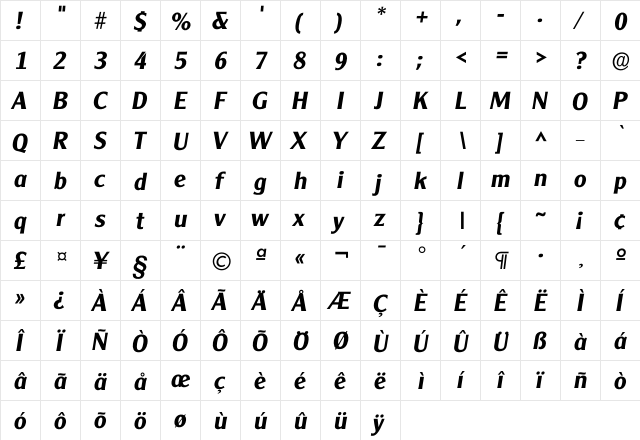
Icleargothic DemiBold
Design Context for Icleargothic Typeface
Icleargothic takes a clean, functional approach — its unadorned letterforms prioritise legibility and work reliably across screen and print environments. Its bold stroke weight gives it real presence on the page.
Font Pairing: Works well alongside a characterful serif or display font that can carry the expressive load while Icleargothic handles the functional copy.
Pro Tip: Use Icleargothic for UI labels, navigation, and short-form body copy where clean legibility is the priority.